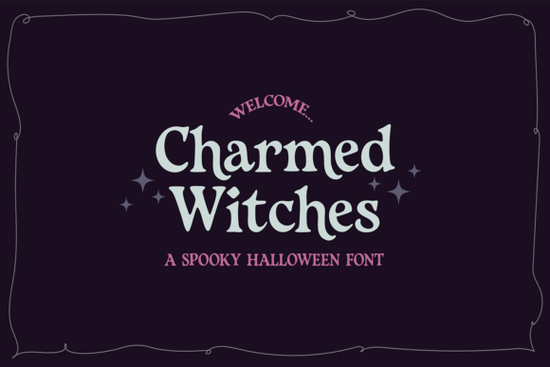
Charmed Witches Font is a standout choice for anyone looking to add a touch of elegance and mystery to their Halloween designs. This serif font blends vintage charm with a dark, magical vibe, making it perfect for everything from invitations to branding materials. Whether you're a designer, crafter, or small business owner, this font can help you create visuals that feel both sophisticated and spooky.
If you're exploring serif fonts for your next project, Charmed Witches stands out for its unique balance of style and readability. It's not just about being scary it's about creating an atmosphere that feels enchanting and refined. The flowing curves and intricate details make it ideal for spell books, potion labels, and other witchy-themed designs. It’s a versatile option that works well in both digital and print formats.
What Makes Charmed Witches Font Unique?
One of the key features of Charmed Witches Font is its ability to convey a sense of magic without being too intense. It’s designed with a subtle gothic flair that adds depth to any design. The font includes a range of characters and symbols that support a variety of Halloween-related themes, making it easy to use across different projects.
For those who appreciate elegant typography, this font offers a refreshing alternative to more common Halloween styles. Its serif structure gives it a classic feel, while the ornate details add a touch of whimsy. It’s especially useful for headline designs, where a strong visual impact is needed without overwhelming the viewer.
Best Uses for Charmed Witches Font
- Halloween invitations: Create elegant and memorable invites that set the tone for your event.
- Witchy branding: Use it for logos, packaging, or social media assets to establish a cohesive theme.
- Spell books and fantasy content: Add a mystical feel to your creative projects or storybooks.
- Spooky quotes and banners: Highlight phrases with a touch of gothic beauty.
Whether you’re working on a personal project or a client’s design, Charmed Witches Font provides a professional and stylish option. It’s also a great addition to any collection of serif fonts, especially if you're looking for something that feels both timeless and modern.
How to Use Charmed Witches Font Effectively
To get the most out of Charmed Witches Font, consider pairing it with simpler typefaces for contrast. For example, using it as a headline with a clean sans-serif font for body text can create a balanced look. This approach helps maintain readability while still allowing the font to shine.
Another tip is to experiment with color and layout. Dark, rich tones like deep reds, purples, and blacks can enhance the magical feel of the font. Adding subtle textures or background elements can also elevate the overall design without overpowering the typography.
As you explore the possibilities with Charmed Witches Font, keep in mind that less is often more. Using it strategically can make a big difference in how your designs are perceived. Whether you're creating for a small business or a personal project, this font has the potential to add a unique and captivating element to your work.
Consider adding it to your design toolkit if you're looking for a versatile, elegant, and slightly mysterious font. With its blend of sophistication and spooky charm, it’s a valuable asset for any creative professional.
Before finalizing your design, make sure to test the font in different sizes and layouts. This will help you see how it performs in real-world applications and ensure it meets your needs. Experimenting with different combinations can lead to some unexpected and exciting results.